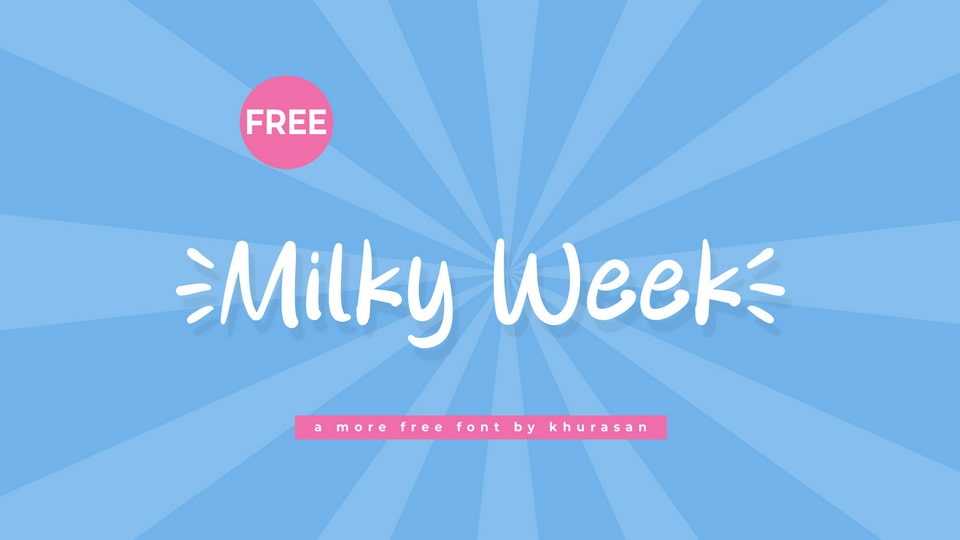
Download Milky Week font, a simple, playful, and irresistibly cute hand-drawn typeface with a natural, charming appeal with its slightly irregular strokes and organic shapes.